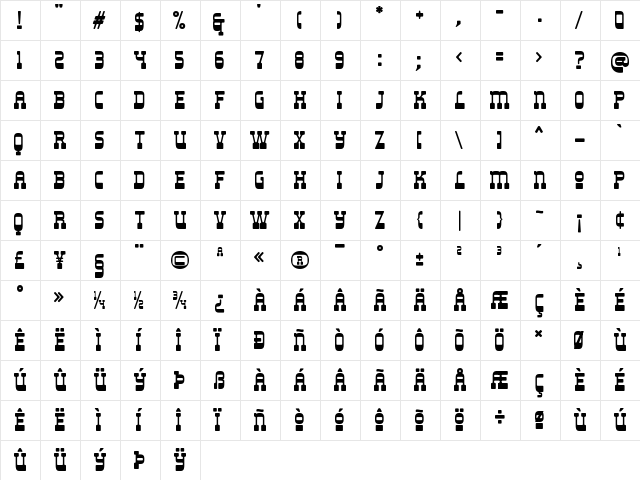
Liong Personal Use Regular
Design Context for Liong Personal Use Typeface
Liong Personal Use is a composed and adaptable typeface that performs quietly and consistently across a wide range of design contexts.